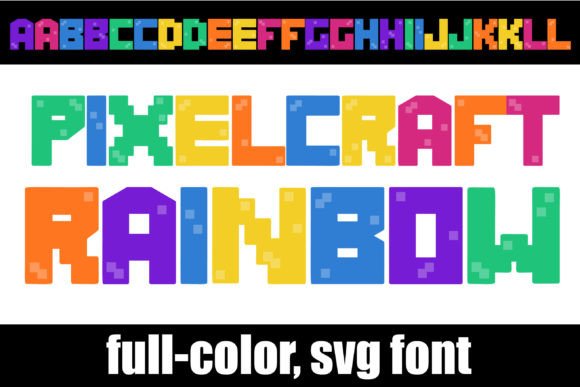
Pixelcraft Rainbow: The Bold Typeface That Pops
If you've ever stared at a blank canvas—be it a website header, a product label, or a social media post—feeling like something is missing, the answer often lies in typography. Not just any typography, but a typeface with enough personality to carry the entire visual weight of your message. Enter Pixelcraft Rainbow, a vibrant, quirky, and colorful font designed for those moments when "safe" and "neutral" simply won't cut it. This isn't your standard corporate serif font or your run-of-the-mill sans serif; it is a high-energy, creative font that demands attention and refuses to blend into the background.
Injecting Energy into Modern Design
In a digital landscape saturated with minimalist designs and monochromatic palettes, standing out requires a deliberate shift in strategy. Pixelcraft Rainbow offers exactly that shift. Its design philosophy centers on bold, playful letterforms that radiate positivity and movement. Unlike static, traditional typefaces, the visual rhythm of this premium font mimics the fluidity and excitement of a festival or a celebration. It is a display font at heart, meaning it is crafted specifically for headlines, logos, and short bursts of text where maximum impact is the primary goal.
For brand strategists and designers, the "vibe" of a font is just as critical as its legibility. Pixelcraft Rainbow brings a specific aesthetic that aligns perfectly with brands that want to appear approachable, energetic, and youthful. It moves away from the stiff, overly professional tone that often alienates younger demographics. Instead, it embraces a sense of fun and silliness, which can be a powerful tool in building an emotional connection with your audience. When a brand looks fun, customers are more likely to engage with it.
Practical Applications for Creative Projects
Understanding where to deploy a specialized typeface like Pixelcraft Rainbow is key to successful design. Because of its distinct character, it excels in environments where visual hierarchy is needed immediately. It is not designed for long-form body text; rather, it acts as the exclamation point of your visual language.
Here are several practical areas where this typeface shines:
- Logo Design & Brand Identity: If you are launching a new product line aimed at a younger demographic, or perhaps a creative agency, Pixelcraft Rainbow can form the backbone of your visual identity. It helps in creating a logo that is instantly recognizable and memorable.
- Packaging Design: On crowded shelves, packaging needs to speak fast. Whether you are designing for candy, children's toys, or artisanal snacks, the bright and unique letterforms of this font can help your product pop off the shelf.
- Social Media Graphics: Platforms like Instagram and TikTok are driven by visuals. Using this creative font for your quotes, sale announcements, or video thumbnails can significantly increase click-through rates. It cuts through the noise of a busy feed.
- Merchandise & Apparel: T-shirts, tote bags, and stickers often rely on bold typography. The playful nature of Pixelcraft Rainbow translates beautifully to print-on-demand products, offering a modern typography look that appeals to trend-conscious buyers.
- Event Invitations & Posters: Whether it’s a birthday party, a music festival, or a community bake sale, the font sets the mood instantly. It promises the reader that the event will be entertaining and vibrant.
Bridging the Gap Between Playful and Professional
One of the challenges with "fun" fonts is that they can sometimes look cheap or unprofessional if not designed well. However, Pixelcraft Rainbow strikes a careful balance. While it is undeniably playful, it maintains a level of craftsmanship that ensures it doesn't undermine the credibility of your project. This makes it a viable option for digital products, such as e-book covers or course graphics, where you need to look trustworthy but also engaging.
Furthermore, the font supports visual consistency. When you use a typeface with such a strong personality, it becomes a recurring motif in your design assets. This repetition helps with brand recognition. Your audience will start to associate that specific colorful energy with your content, even before they read the words. This is the hallmark of effective visual communication—using design to trigger an immediate emotional response.
Technical Versatility: PUA Encoding and Glyphs
A beautiful typeface is only useful if it is accessible. One of the standout features of Pixelcraft Rainbow is its PUA (Private Use Areas) encoding. For the uninitiated, this is a technical feature that allows users to access all glyphs, swashes, and alternate characters easily, even without professional design software.
This is particularly beneficial for small business owners, bloggers, and hobbyists who might be using standard word processors or basic web builders. You don't need to be a typography expert to unlock the full potential of this font. The swashes and alternates allow for customization, meaning you can tweak the letterforms to ensure they connect perfectly or stand apart just how you like them. This level of detail elevates a project from "homemade" to "professionally designed," adding a layer of polish that is often missing in DIY design.
Whether you are crafting a logo for a startup, designing a flyer for a local event, or curating a feed for a lifestyle brand, this typeface offers the energy and uniqueness required to make a lasting impression. It proves that typography doesn't have to be rigid or boring; it can be as colorful and expressive as the ideas it represents.